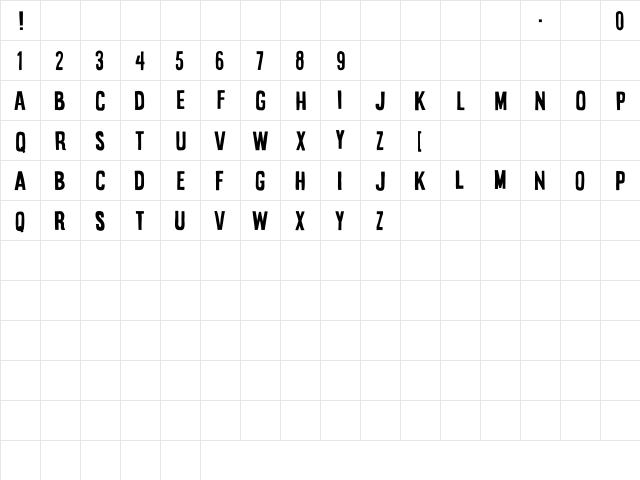
Stupid Meeting Regular
Design Context for Stupid Meeting Typeface
Stupid Meeting takes a measured approach to typography — its balanced proportions and neutral character make it a reliable workhorse for both digital and print work.